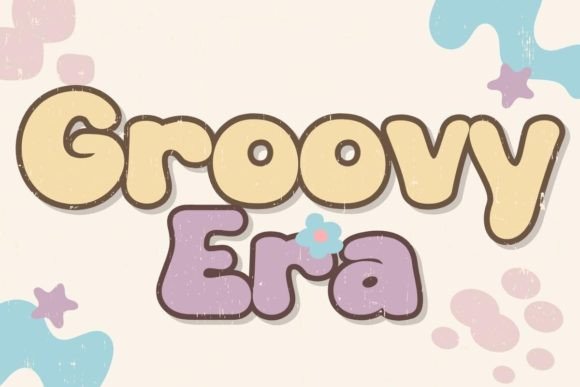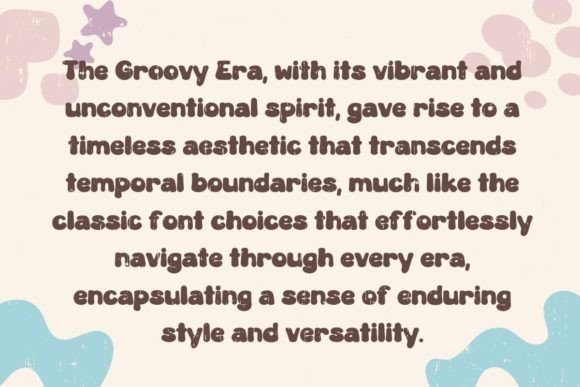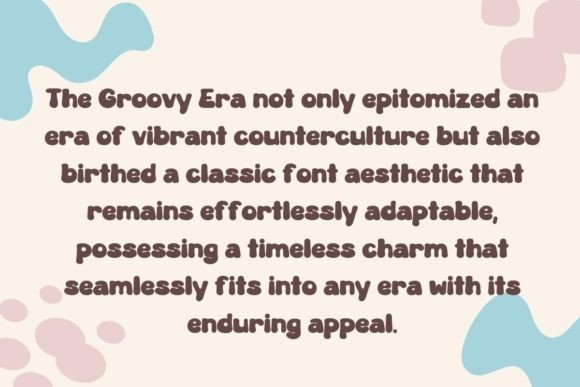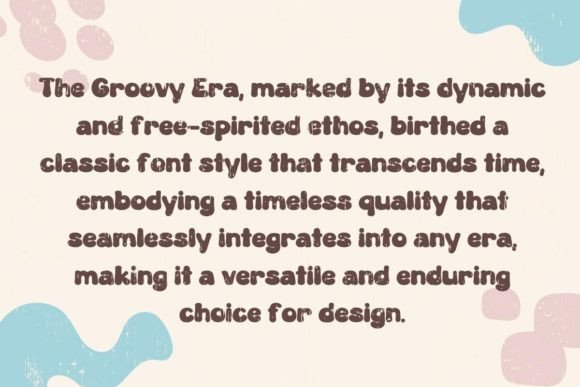
Groovy Era Font
About the Groovy Era Font
Discover the charm of Groovy Era Font. This font is a perfect blend of modern aesthetics and classic appeal. Step into the nostalgic allure of the Groovy Era font, a timeless and classic choice that beckons designers to infuse their creations with a touch of enduring charm. Embrace the versatility of this font, effortlessly bridging the past and present, making it the perfect companion for any era of design inspiration.
Groovy Era’s bold, yet friendly personality makes it ideal for headlines, logos, and short-form text in projects aiming for a retro-inspired aesthetic. It works exceptionally well in branding for vintage clothing lines, record labels, or cafes seeking a nostalgic feel. Avoid using it for large blocks of body text or UI elements where readability is paramount; its distinctive forms might hinder legibility in smaller sizes or extended passages.
Pairing Groovy Era with a clean sans-serif like Open Sans for body copy creates a strong visual contrast, balancing its retro flair with contemporary readability. For a more playful approach, consider pairing it with a script font like Great Vibes for added vintage charm. Alternatively, a geometric sans-serif such as Montserrat provides a modern counterpoint, highlighting Groovy Era’s unique character.
Groovy Era Font Example